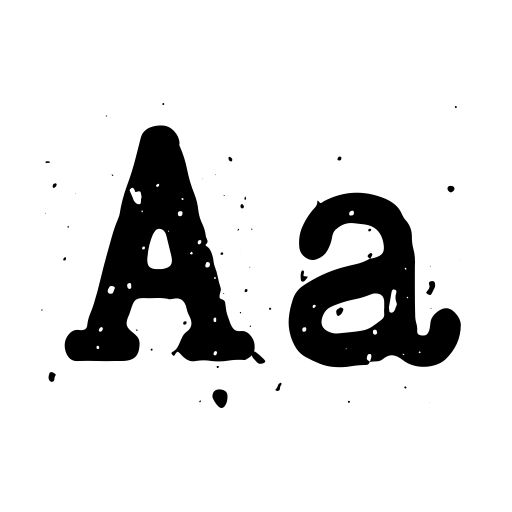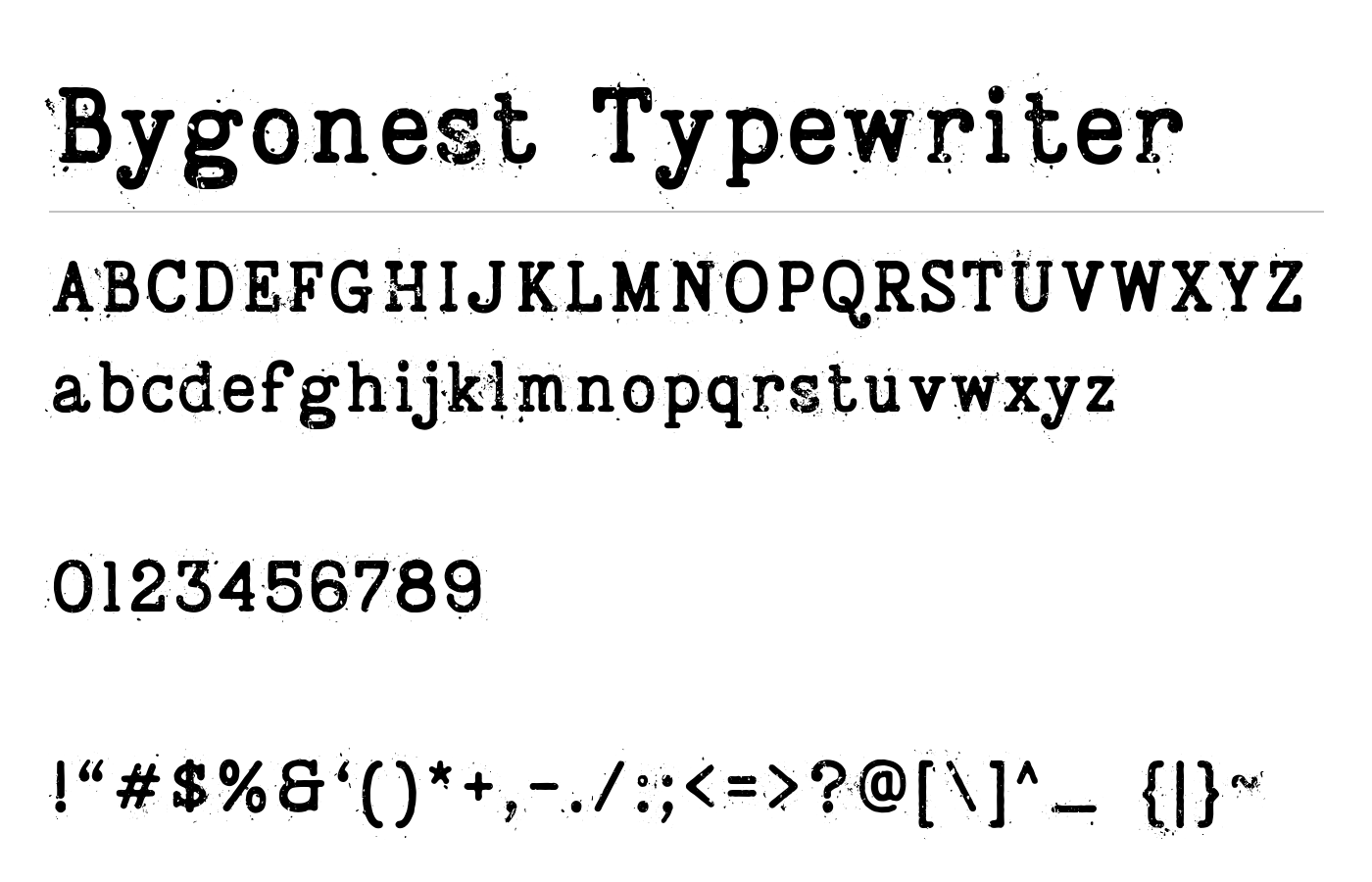
Bygonest Typewriter is a distressed slab serif font that captures the nostalgic feel of vintage typewriter text with its rough, textured appearance and sturdy, bold letterforms. It features a medium weight and normal width with classic slab serifs and monospaced style, making it ideal for designs that seek to evoke a retro, industrial, or authentic handmade vibe. This font works beautifully for headlines, packaging, and creative projects that want to convey a sense of history or rugged charm.
Bygonest Typewriter Font
About Bygonest Typewriter Font